23 Luxury Canva Fonts
Looking to add a fancy touch to your projects? Then you are in the right place.
Canva offers numerous fonts for its users, ranging from cute and playful to retro and aesthetic. The best part is that the platform provides these fonts for free, allowing you to use them for social media posts, branding, and personal use.
In this article, we are focusing on 23 luxury fonts on Canva that bring an elegant touch to your work. So, scroll through this list to find the one that matches your needs.
23 Luxury Canva Fonts For Your Project
1. March:
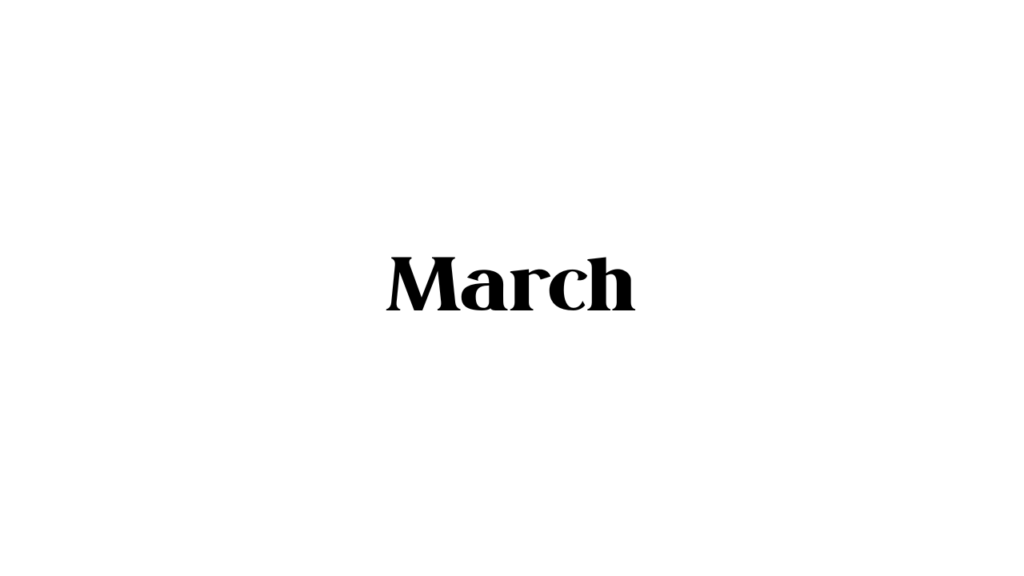
2. Della Respira:
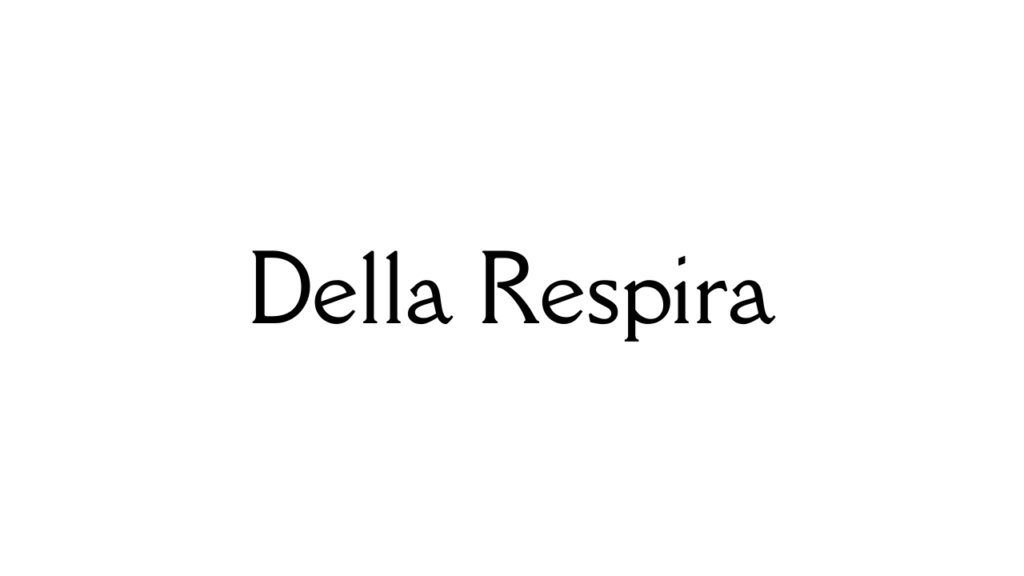
3. Giaza:
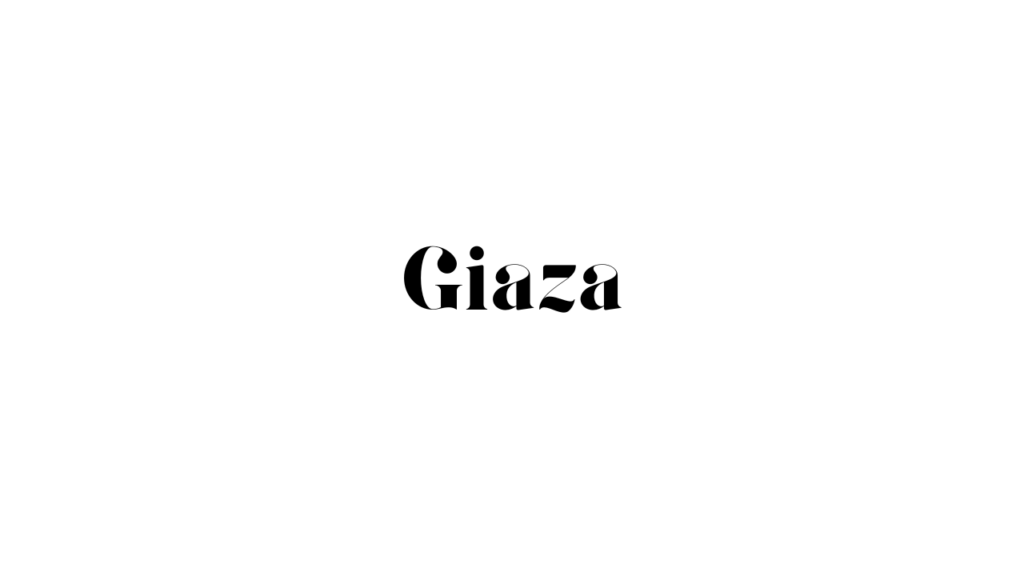
4. Brown Sugar:
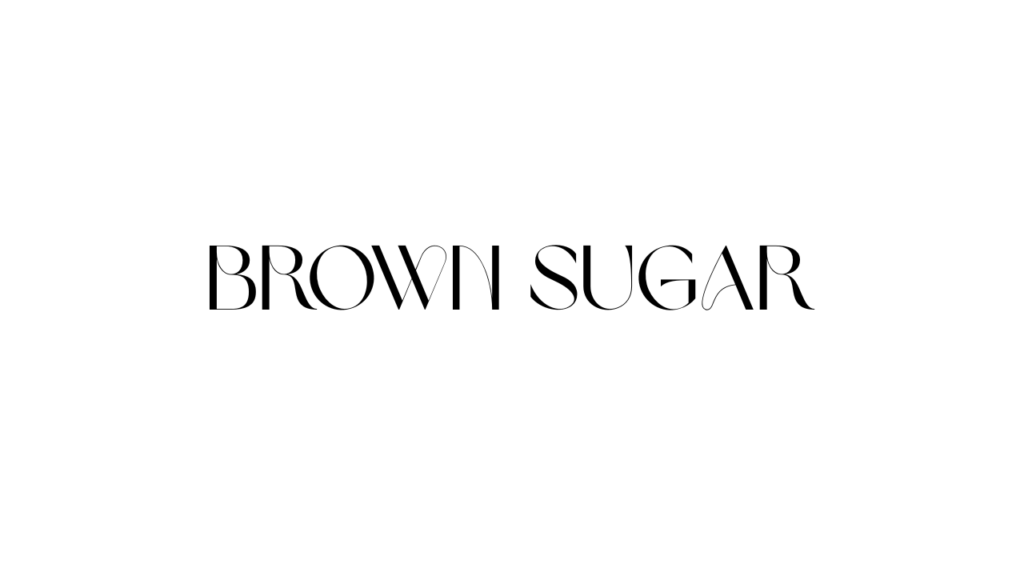
5. Blosta Script:
6. Hello Paris Script:
7. Pinyon Script:
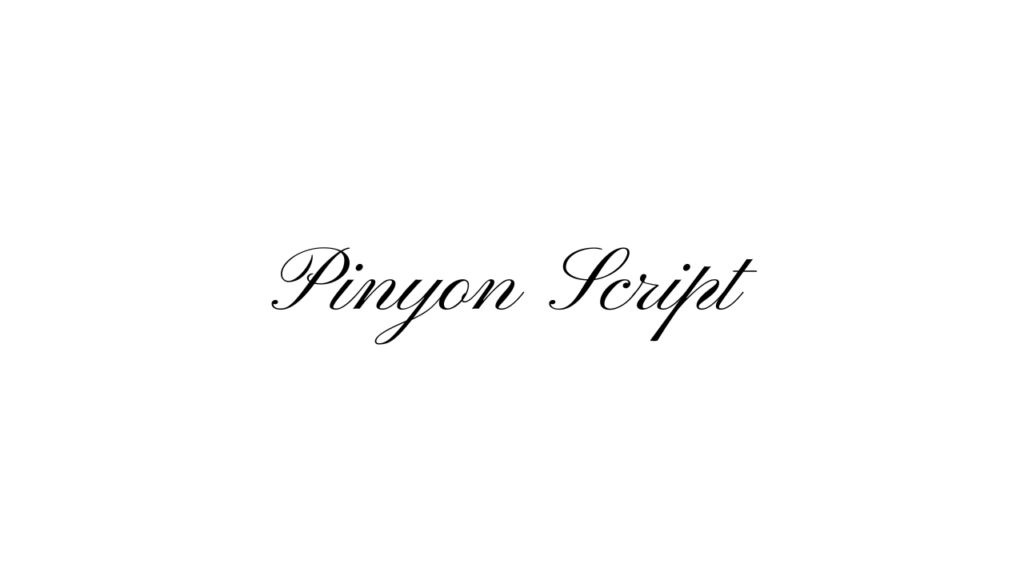
8. Vidaloka:
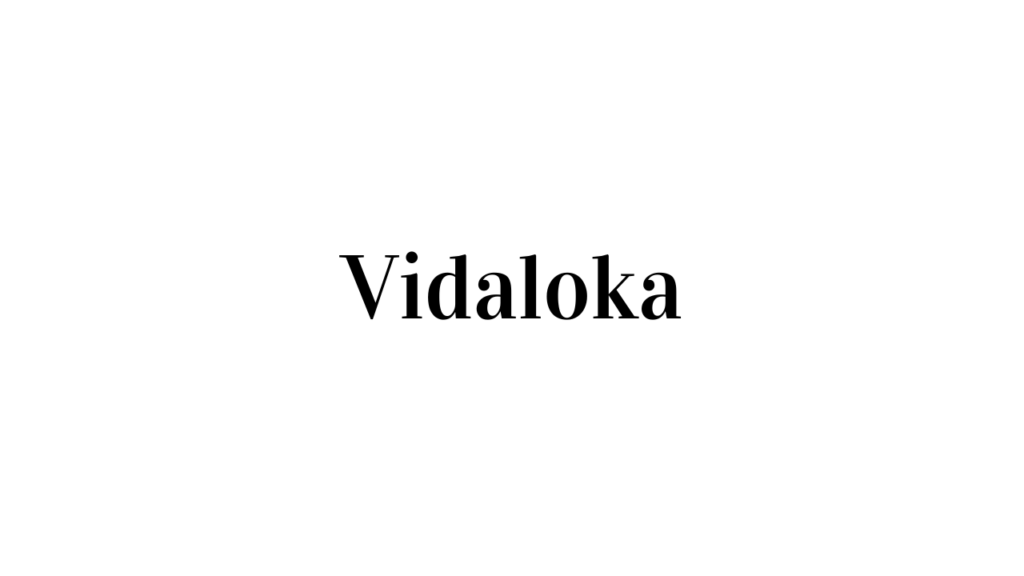
9. Hello Paris:
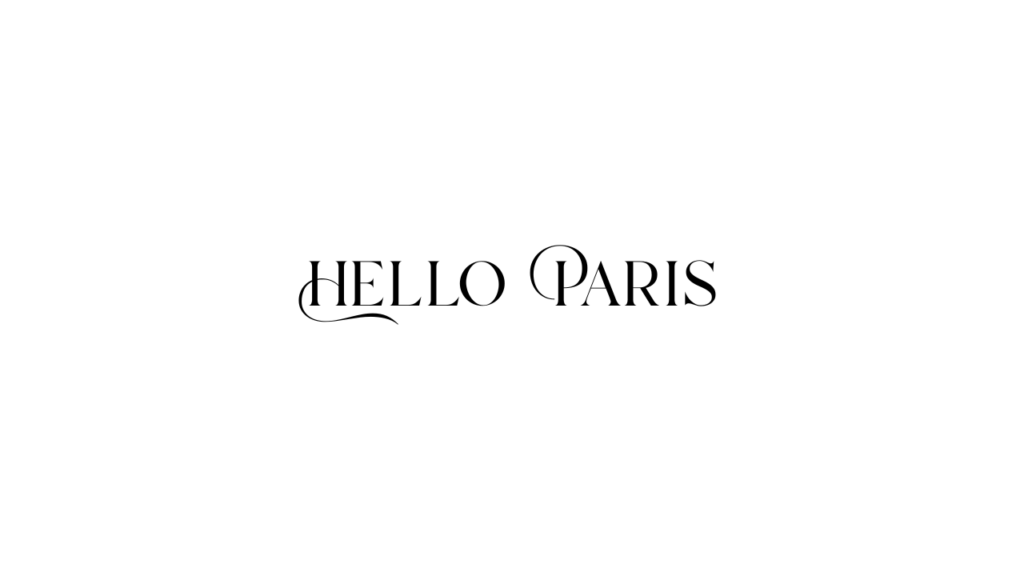
10. Josefin Slab:
11. Tall:
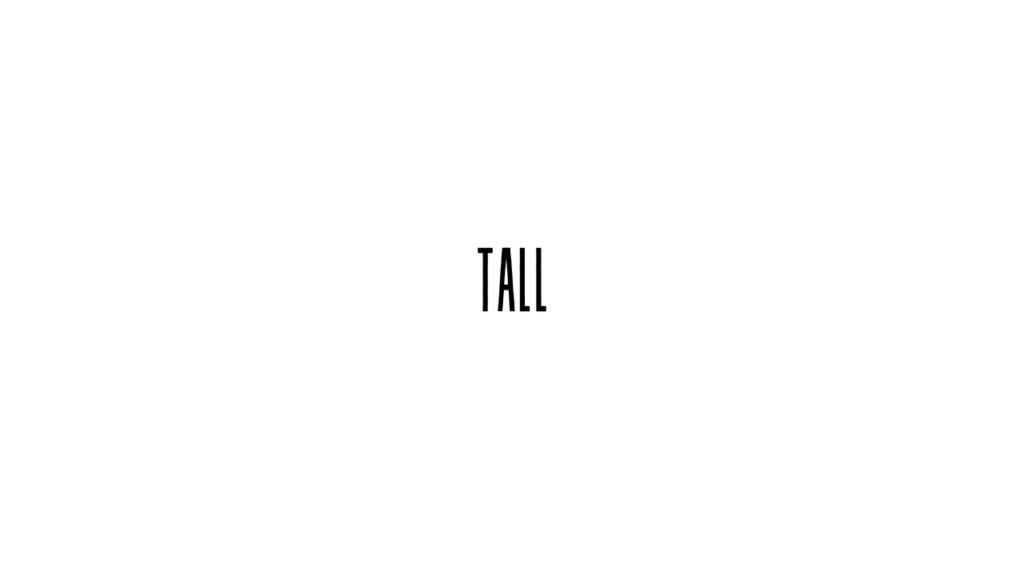
12. Girassol:
13. Jonathan:
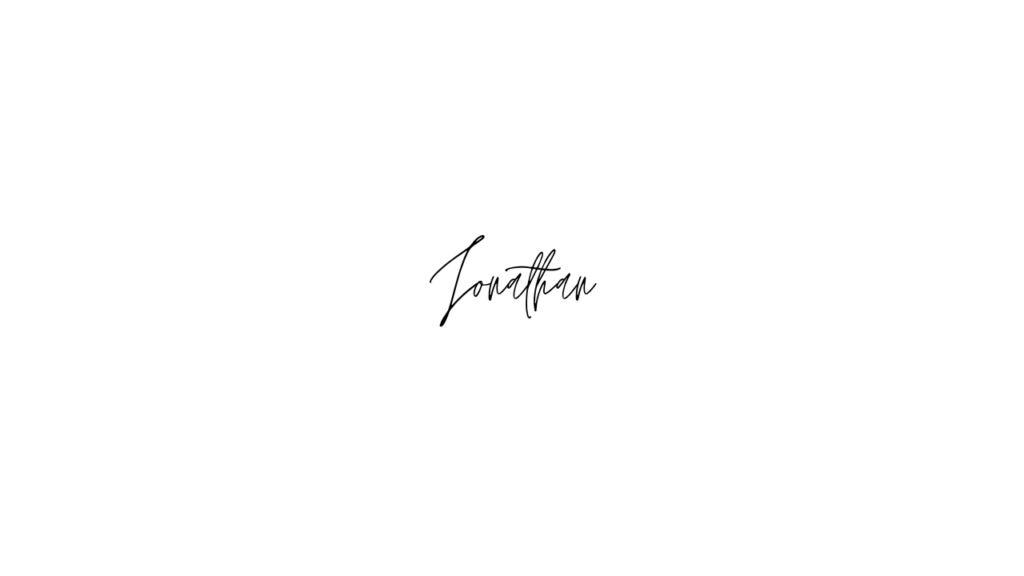
14. Norwester:
15. Shadow Script:
16. New Icon Script:
17. Virtual:
18. Halimum:
19. New Icon:
20. Black Mango:
21. Kage:
22. Moontime:
23. Euphoria Script:
Conclusion